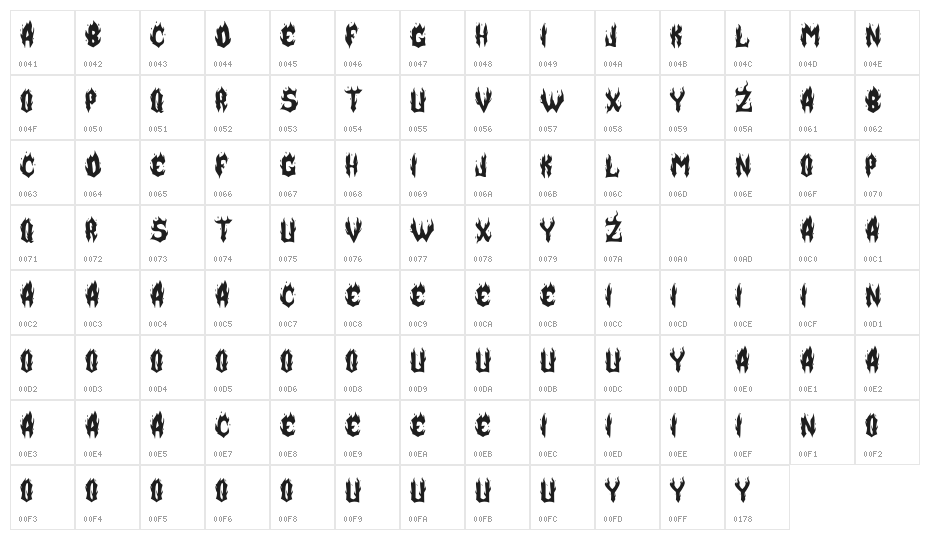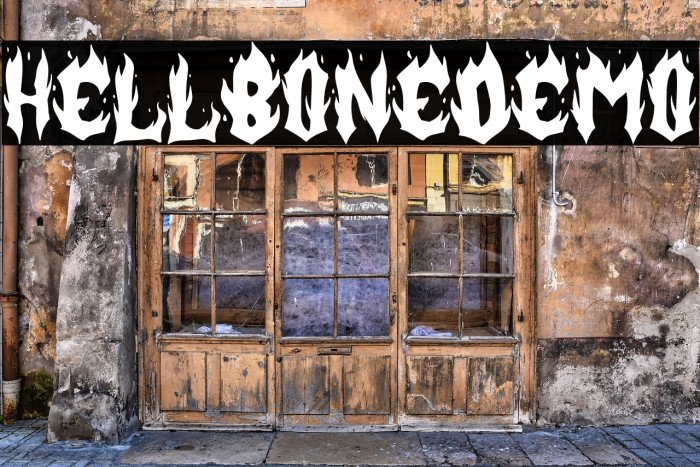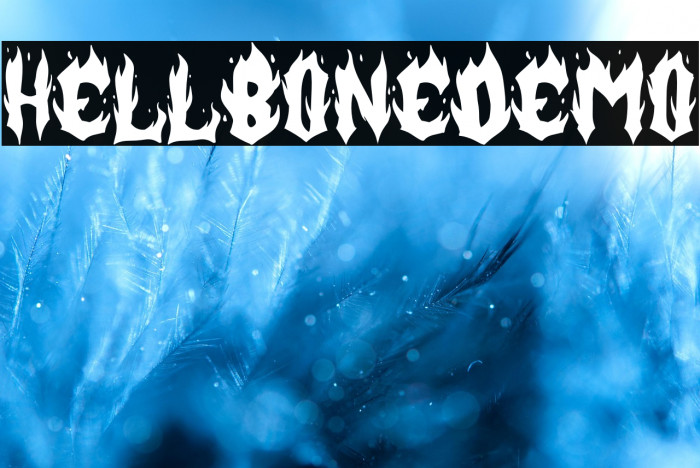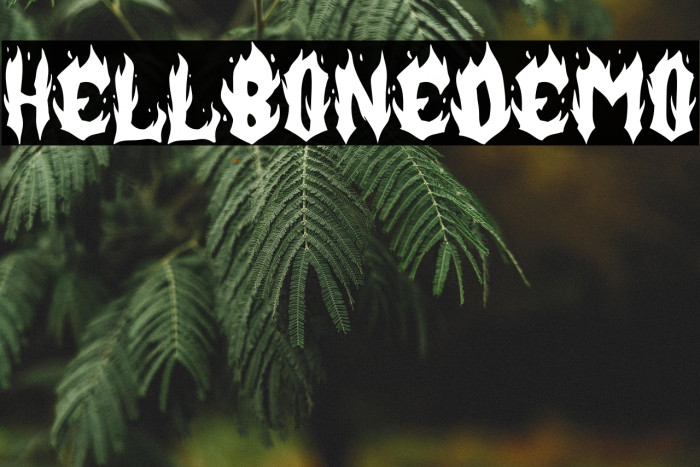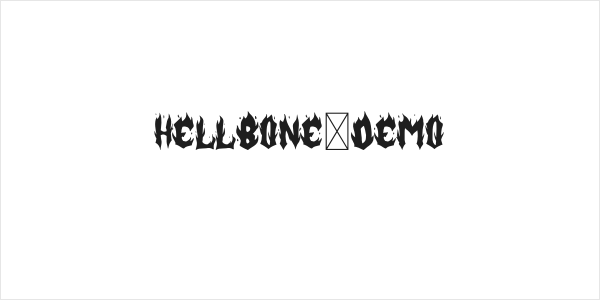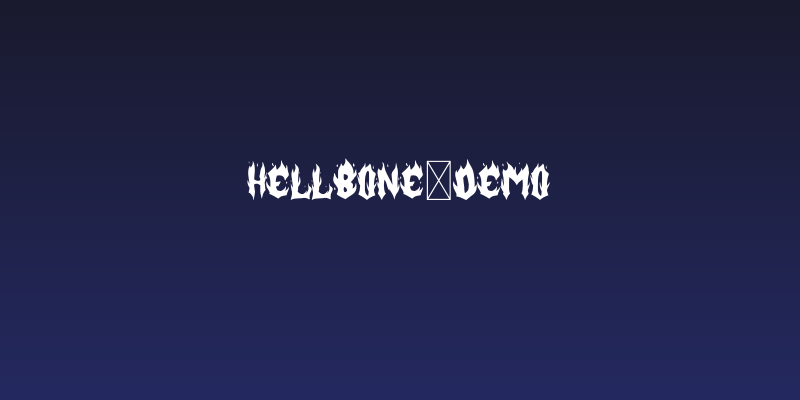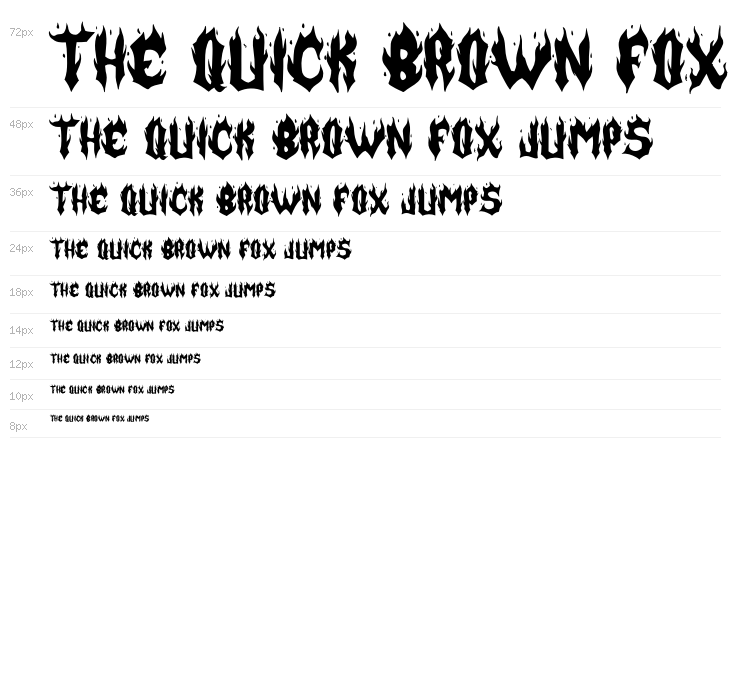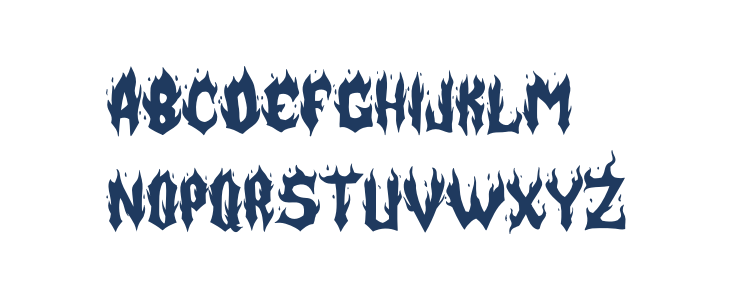
Hellbone-Demo Font
Hellbone-Demo Description
This font features a bold and fiery design, with each character appearing as if it is engulfed in flames. The style is highly decorative, with sharp edges and dynamic shapes that convey a sense of intensity and energy. The uppercase and lowercase letters maintain a consistent theme, with flames licking upwards from the tops of the characters. The numbers and special characters are equally stylized, ensuring a cohesive look across all elements. This font is perfect for creating eye-catching headlines or thematic designs that require a dramatic flair.
| Proposed Projects | Ideal for Halloween-themed designs, rock band logos, video game titles, or any project needing a fiery, dramatic touch. |